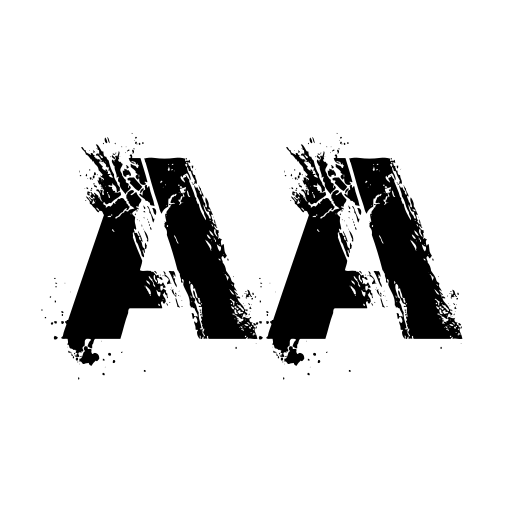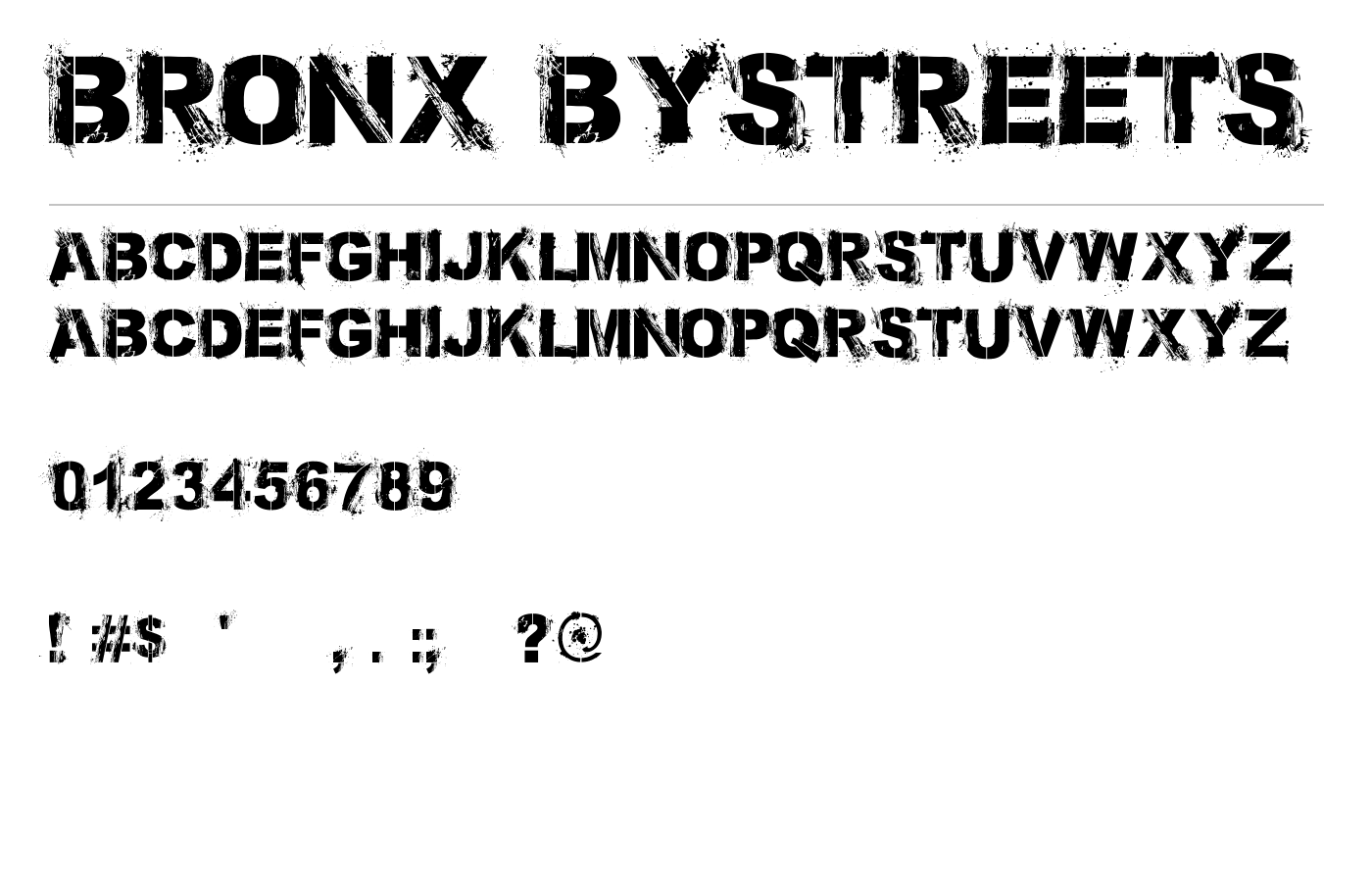
Bronx Bystreets is a bold, distressed sans serif font that radiates a gritty, urban vibe with its rough, splattered texture and strong, blocky letterforms. Its all-caps design and high-impact presence make it ideal for edgy, street-inspired branding, posters, and headlines where a raw, rebellious energy is desired. This font works best in creative projects that want to evoke a sense of toughness and city life authenticity.
Bronx Bystreets Font
About Bronx Bystreets Font
| Font family | Bronx Bystreets Font |